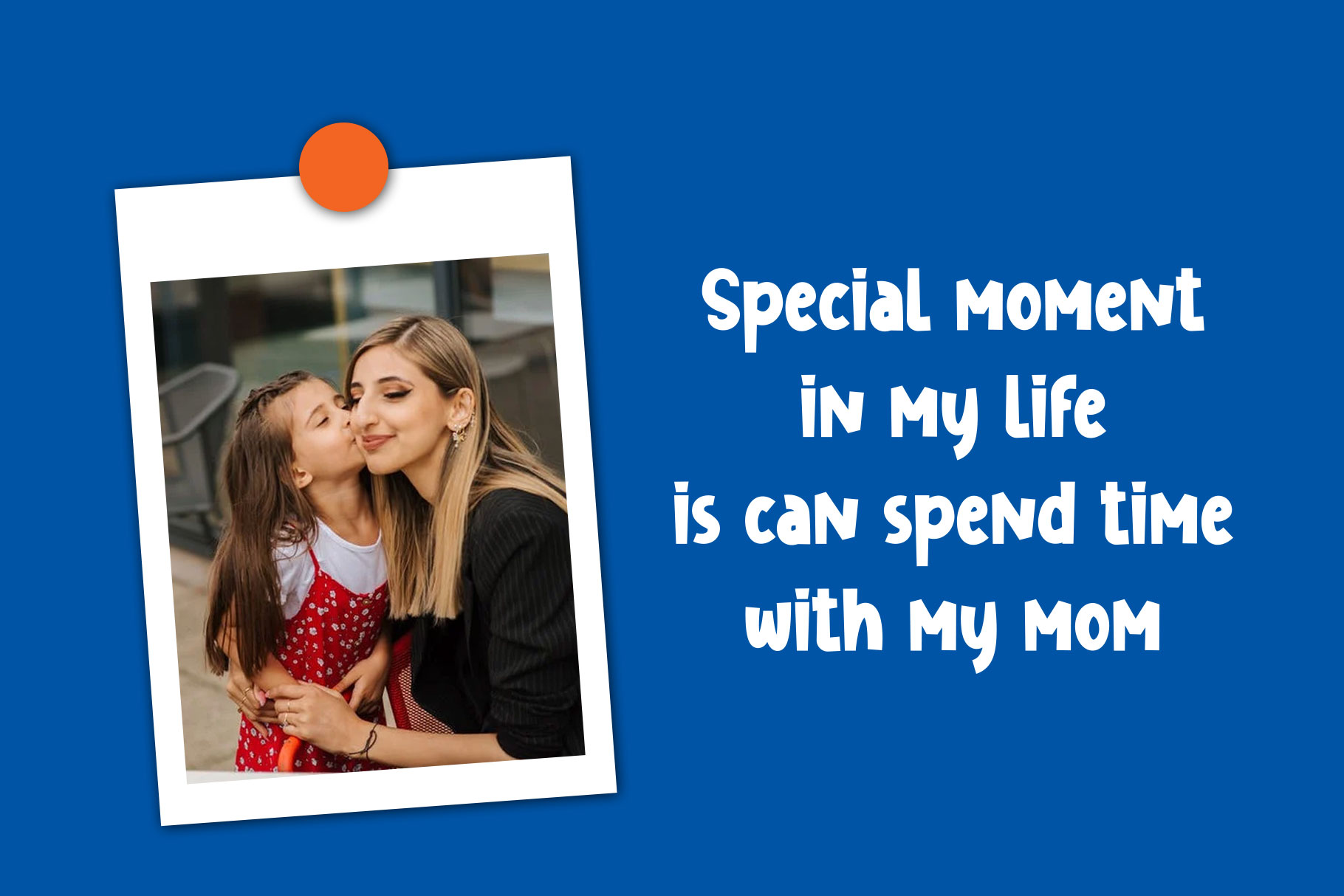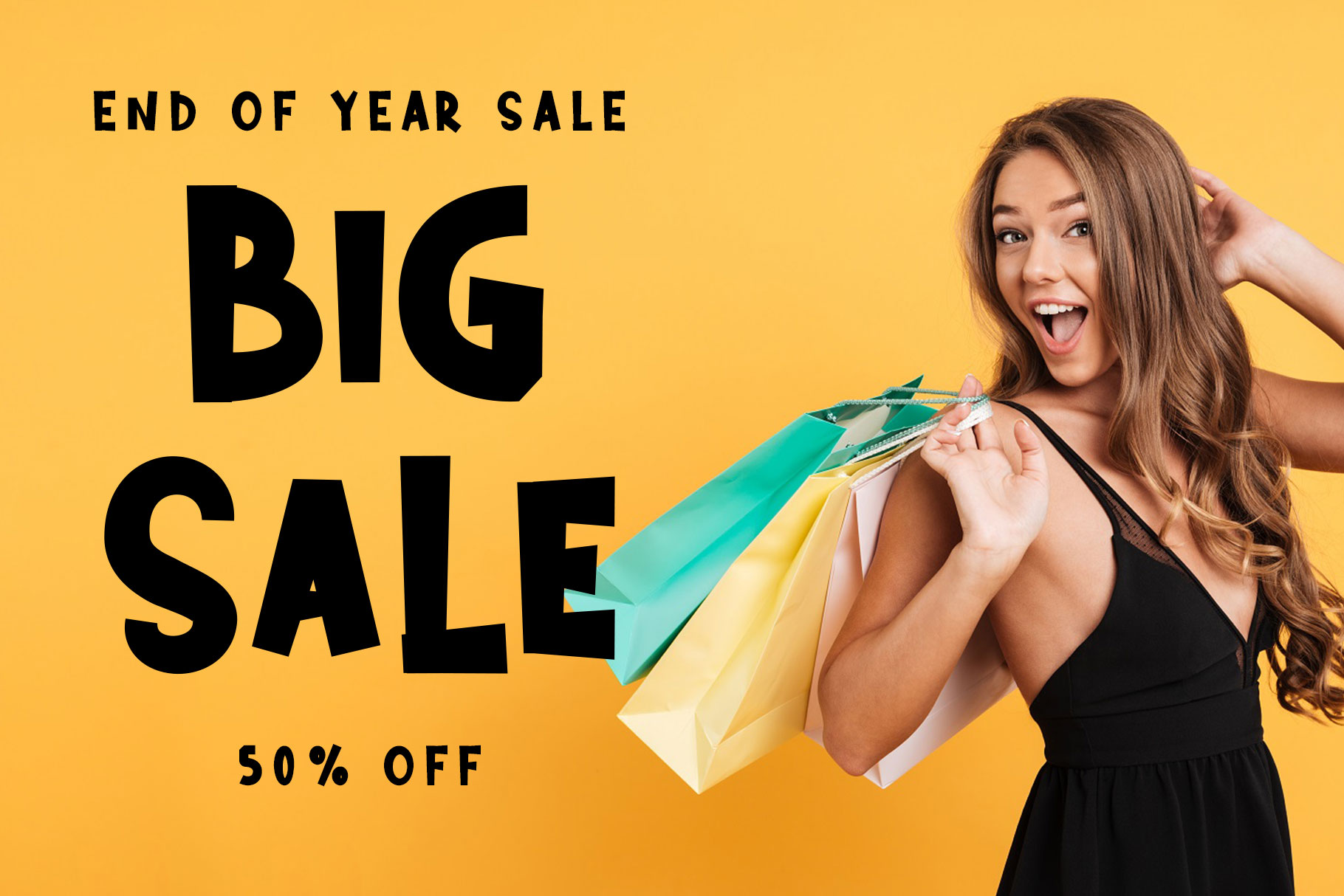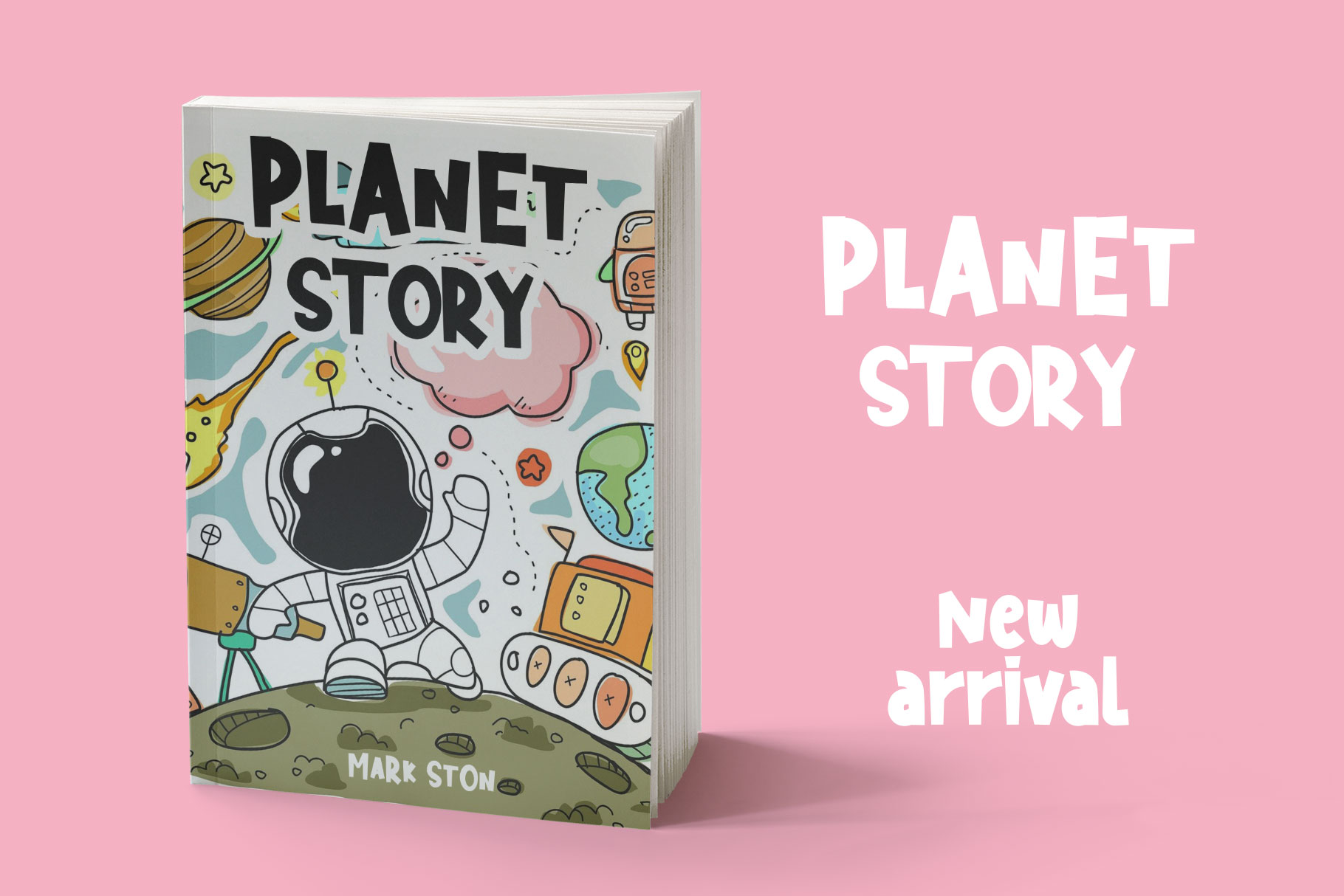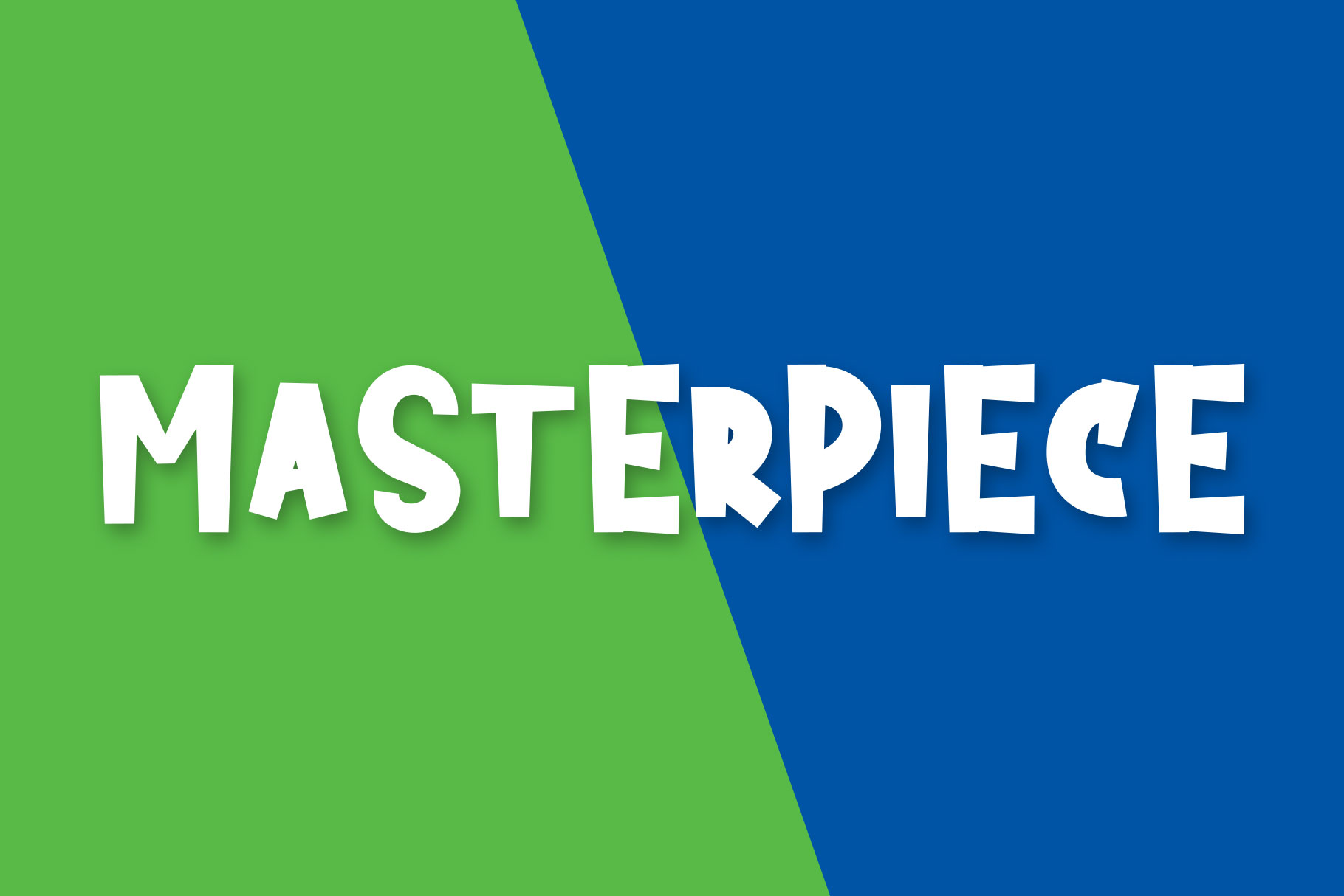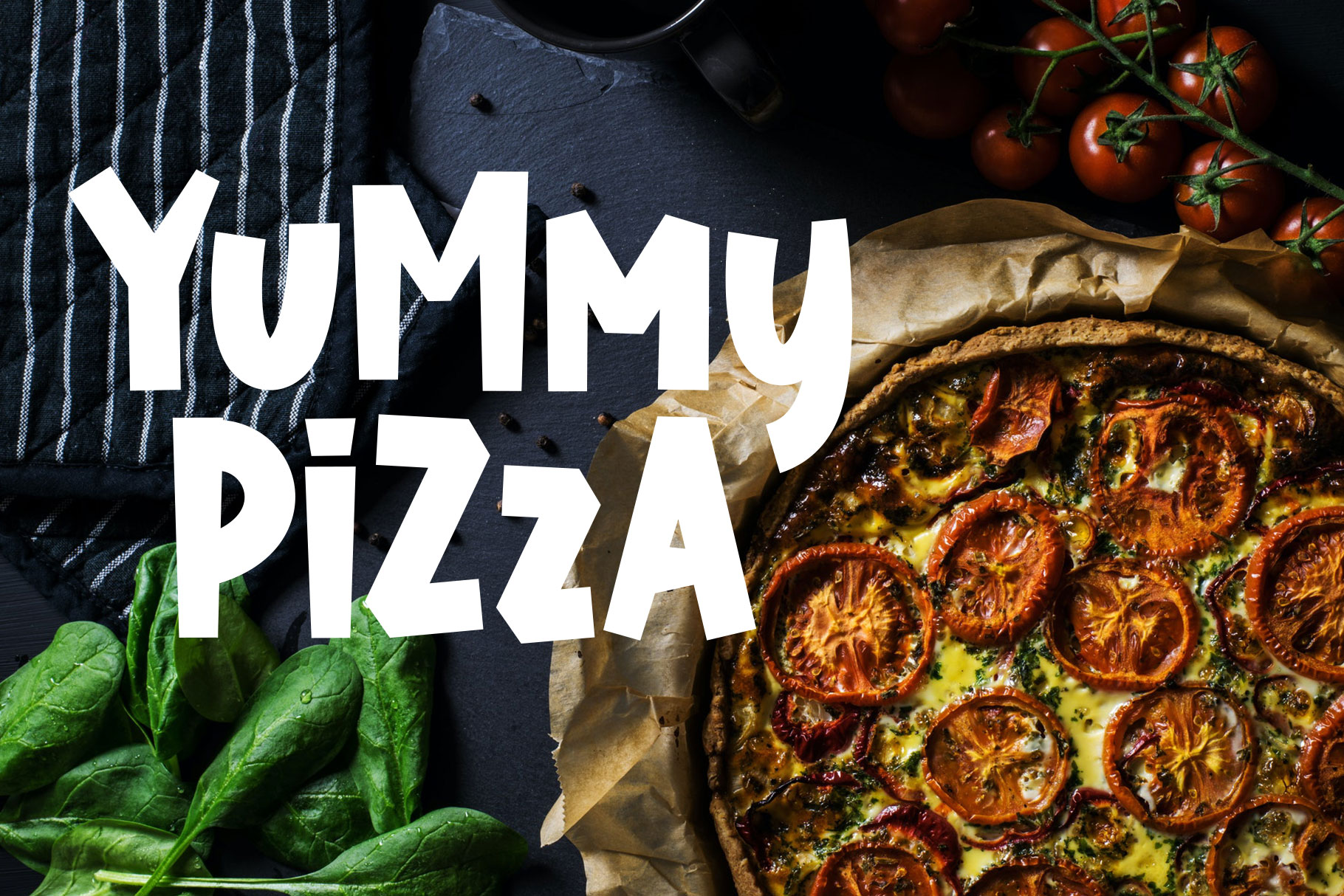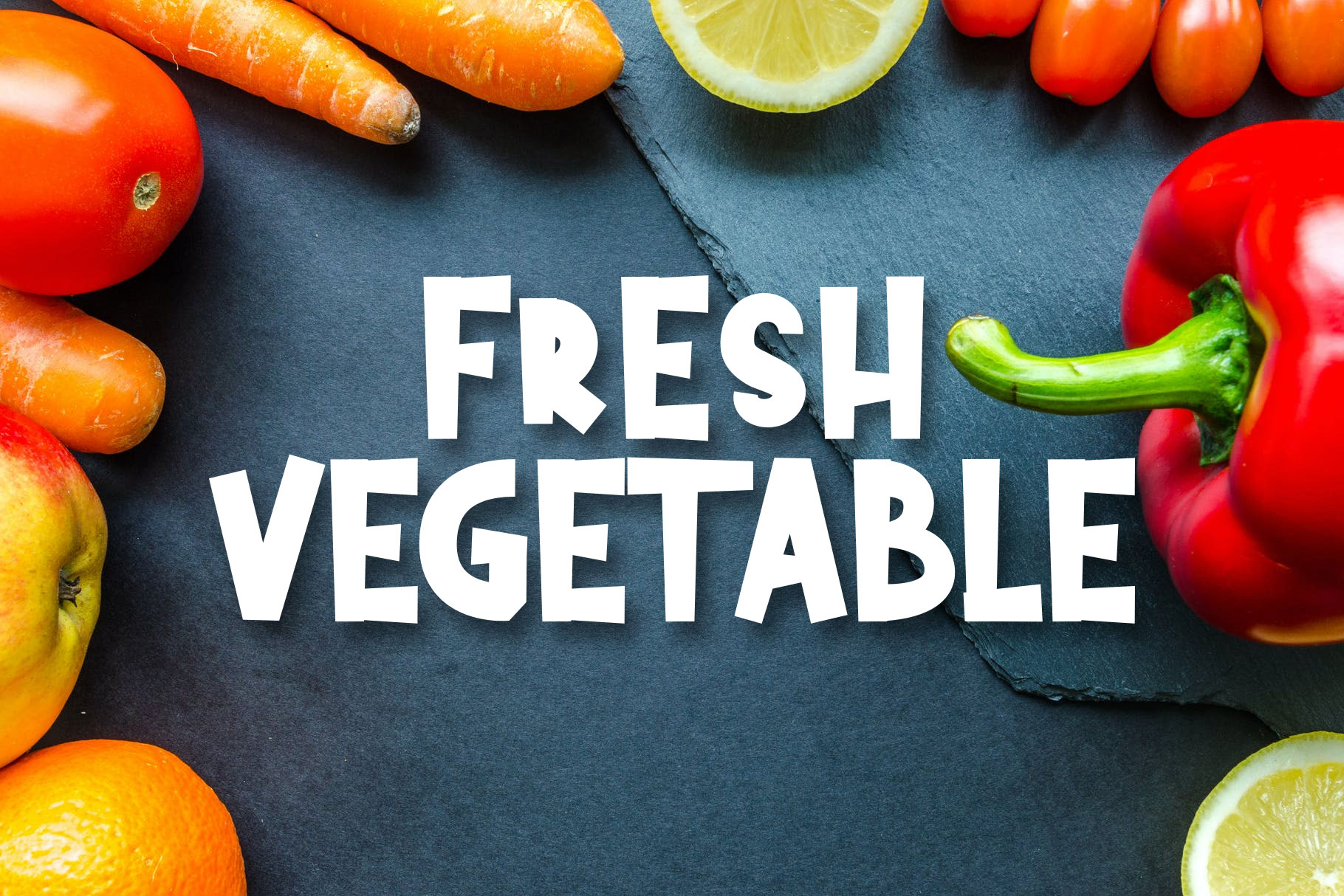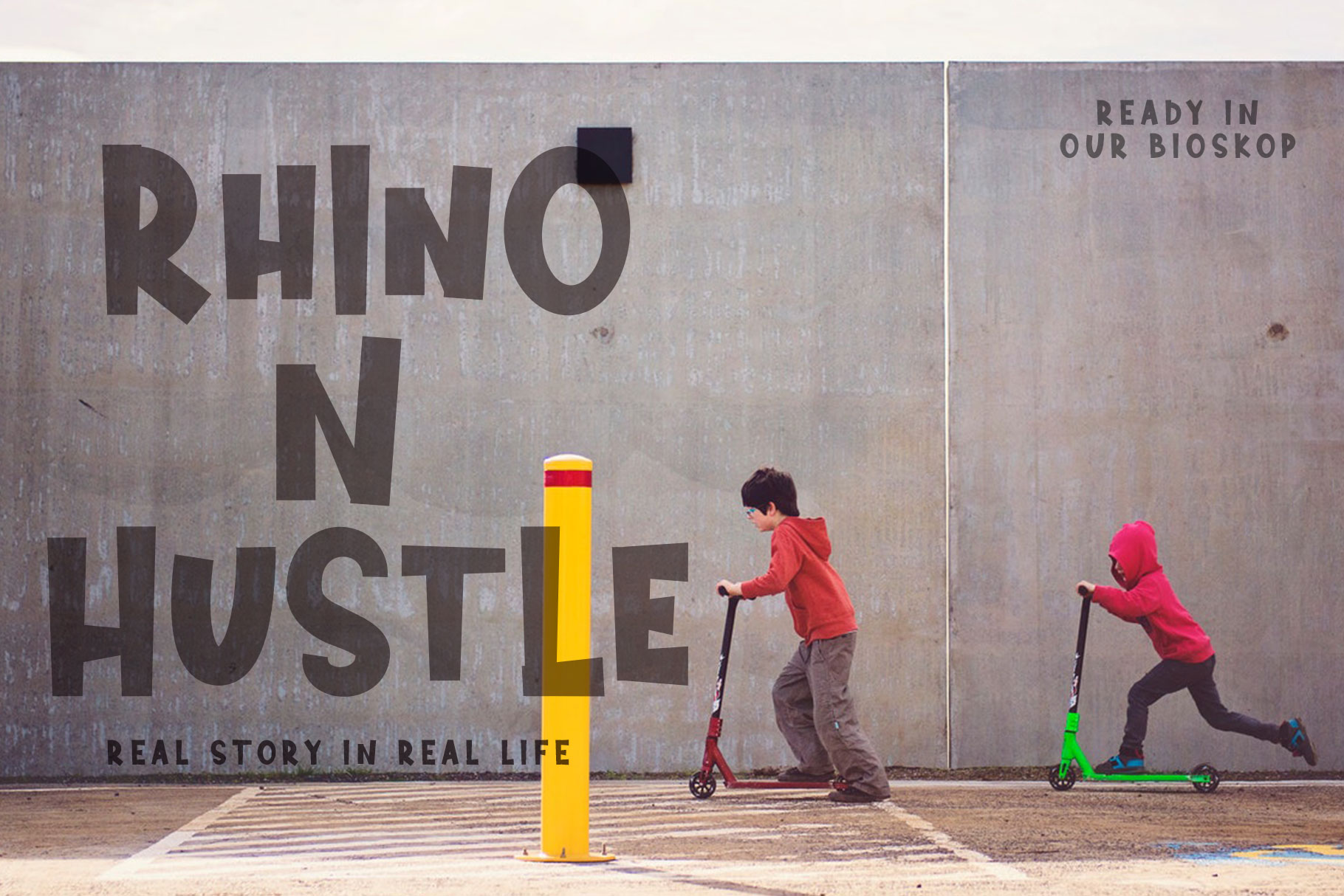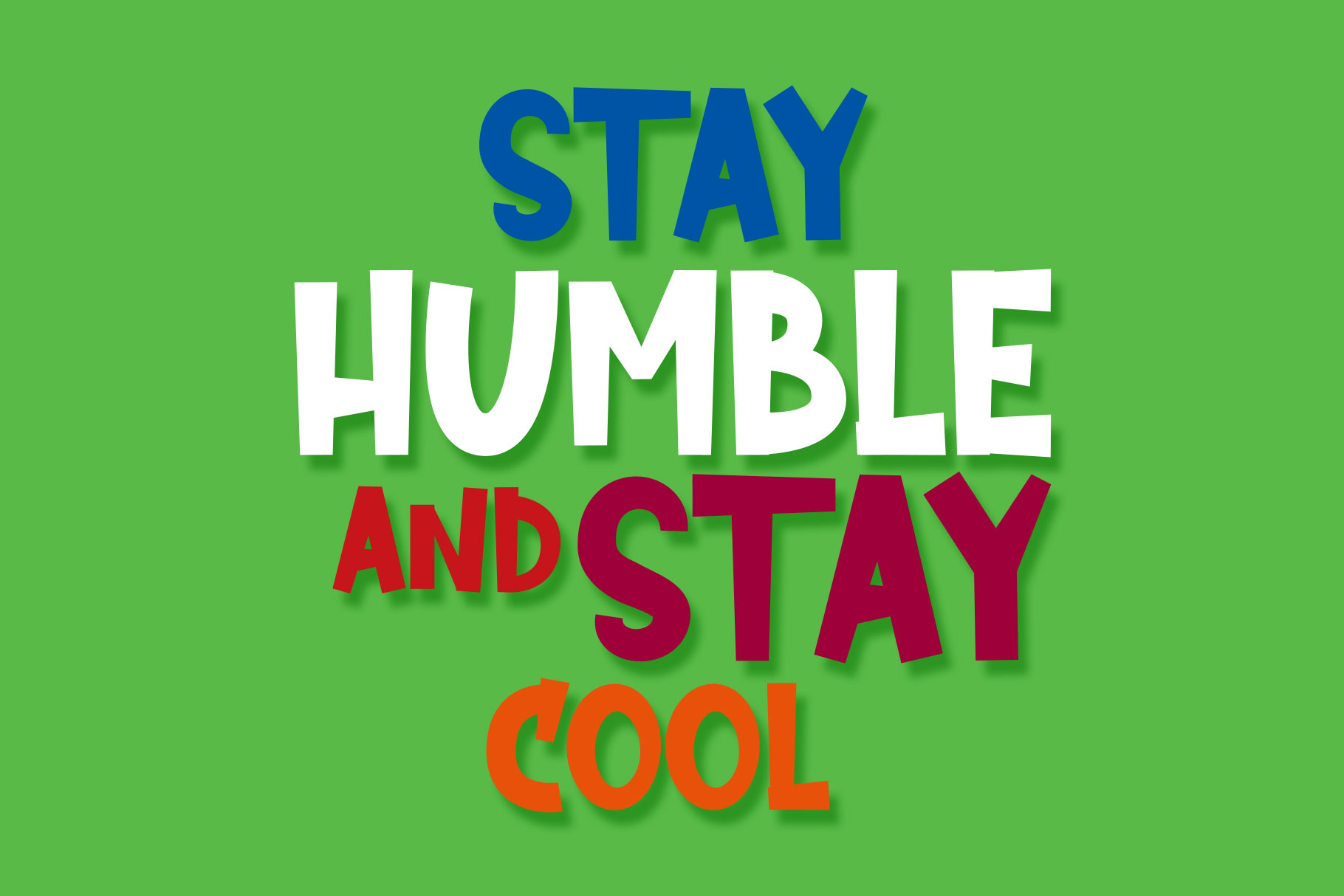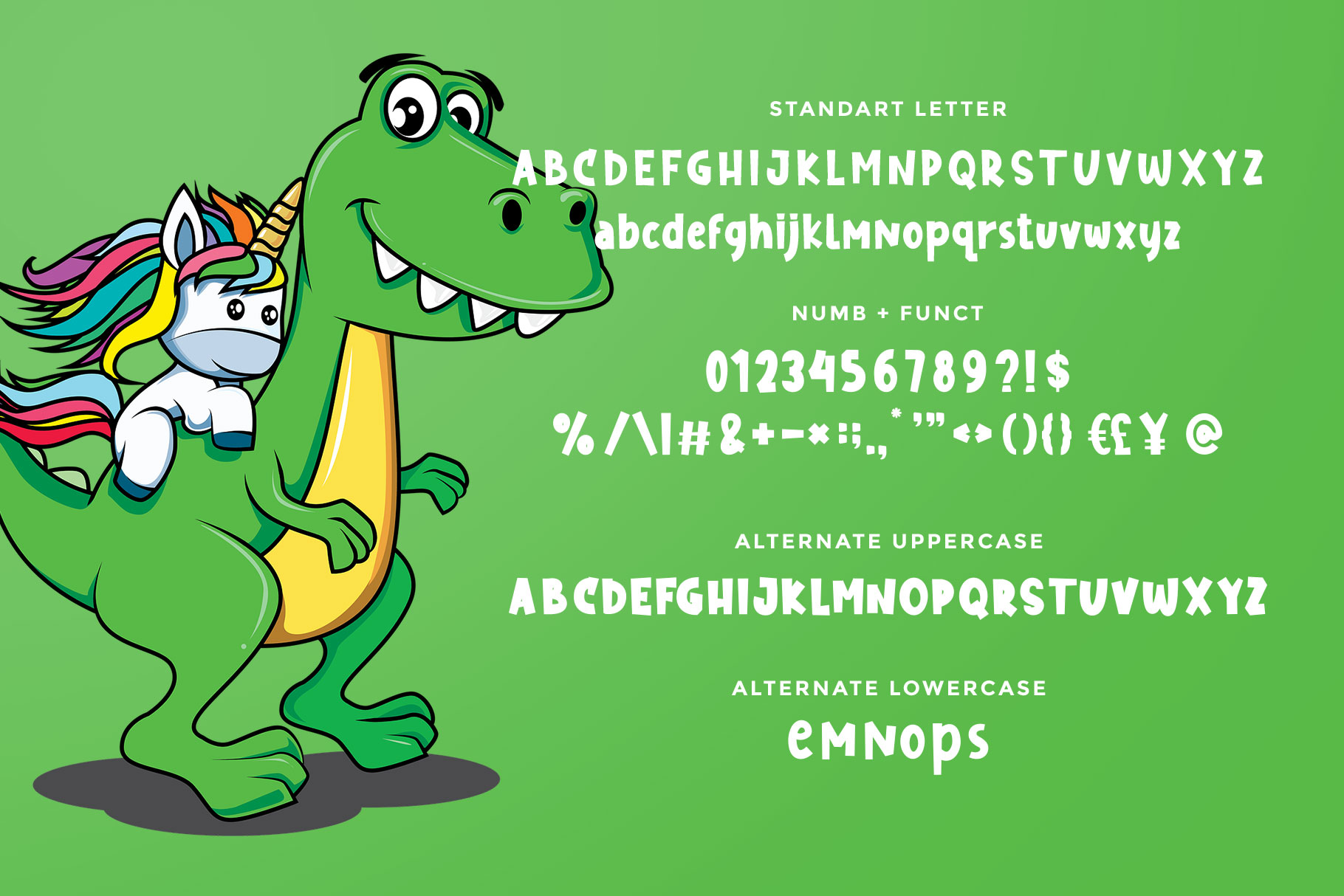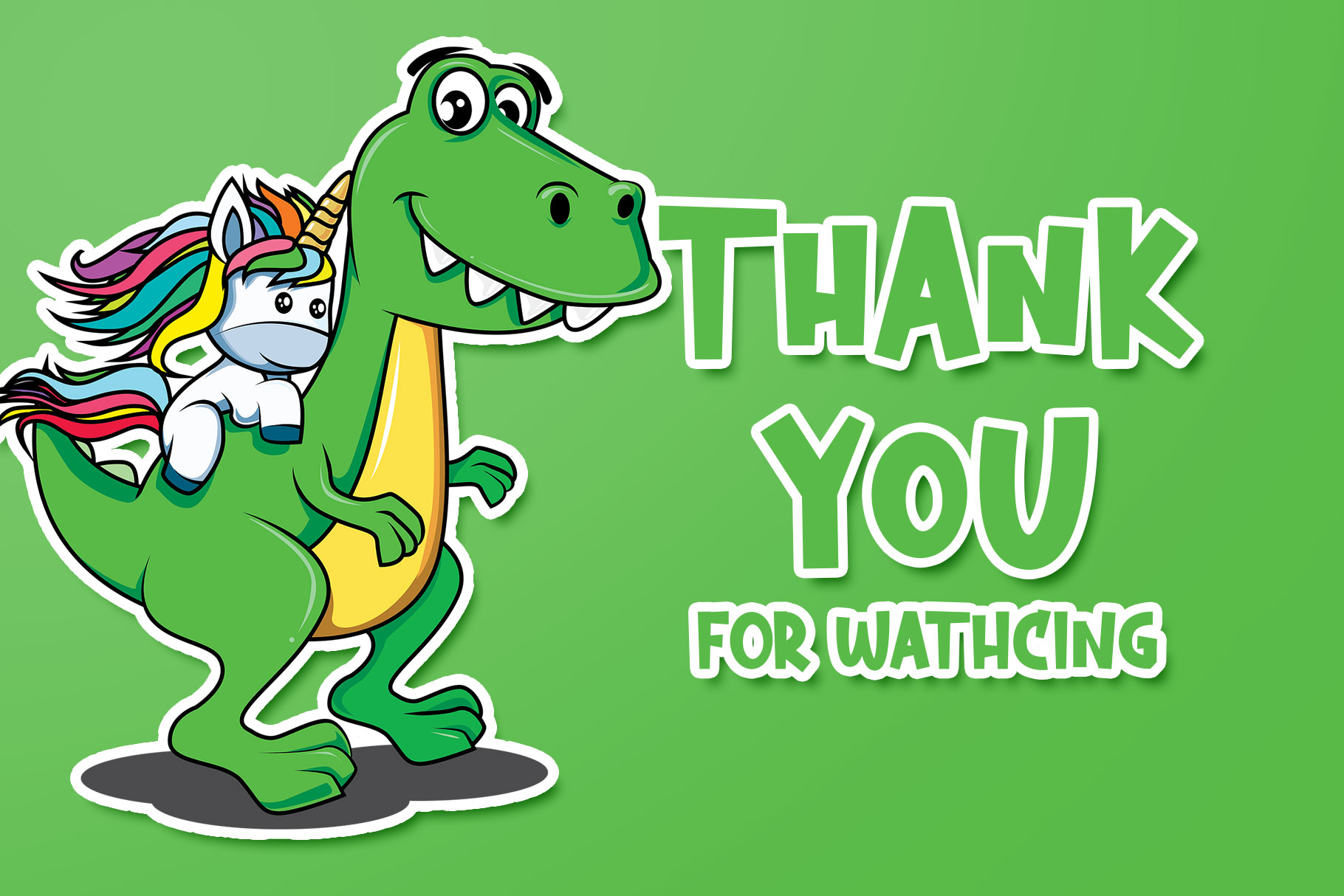
Special Moment Playfull font
Hallo, my name is Special Moment. I am a cool, fun and modernĀ  font. I would look perfect on creating designs targeted towards children but for this font suitable for any profect because the shape look modern. This font suitableĀ  for logos, packaging designs, posters, t-shirt, business card, quotes, books, etc. Let’s we go, to make you business go to next level with Special Moment.
• Standart Letter A-Z and a-z
• Alternate